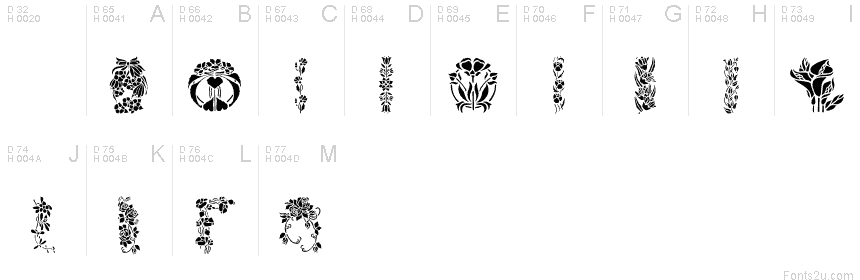
Flowers4 by Denise Clendenin of Fontographer is a free nature dingbat font of stylized floral ornaments. Dense silhouettes combine curling leaves, clustered blossoms, and crisp cutout details.
The collection can turn a product label into a compact botanical emblem. Its self-contained motifs suit garden packaging, wedding invitations, and decorative stationery, with forms ranging from leafy borders to formal flower arrangements. In editorial design, these ornaments can become illustrated dividers, corner decorations, or recurring floral markers throughout a publication.